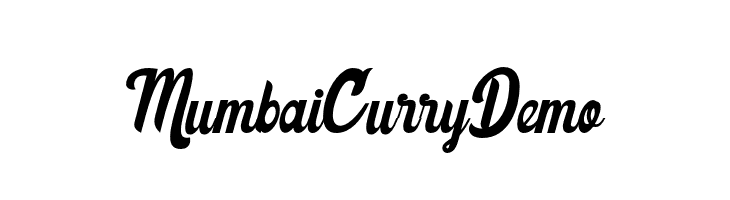
A bold, italic font with smooth curves and a slightly slanted style.
A smooth, flowing italic font with elegant curves and dynamic slant.
A bold, dynamic script font with elegant curves and flowing connections.
A lively, handwritten cursive font with dynamic strokes and a playful style.
A playful and casual handwritten font with fluid strokes.
A flowing, cursive script font with elegant loops and swashes.
A modern, elegant script font with flowing, cursive characters.